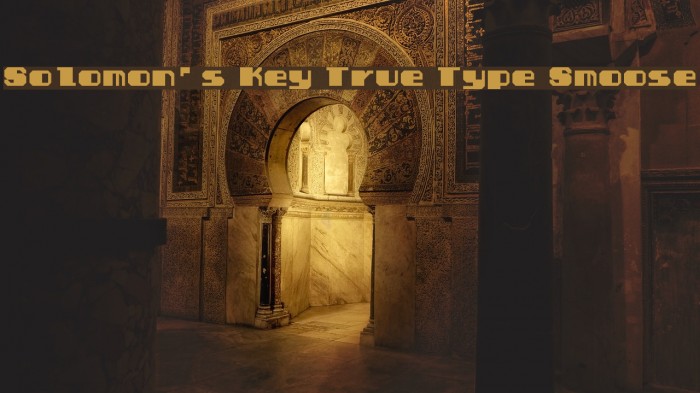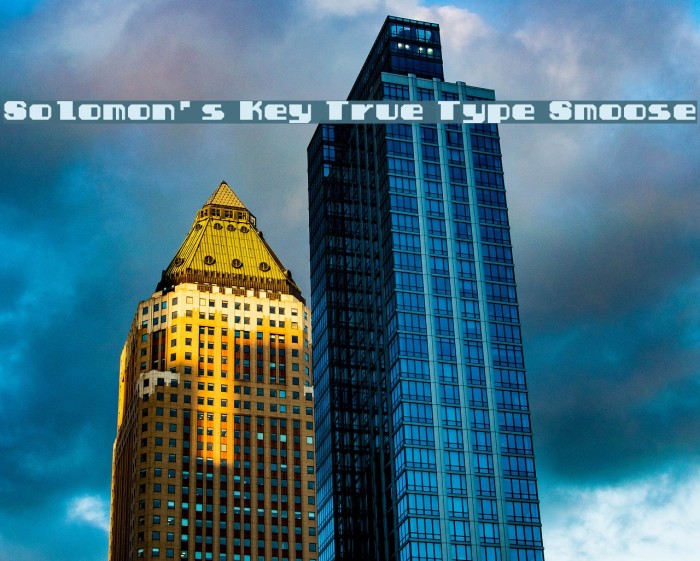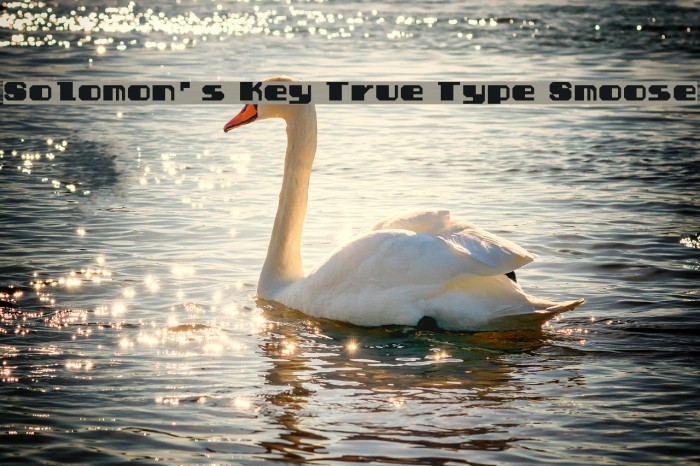
Solomon's Key True Type Smoose Font
This font features a bold, geometric design with a distinct blocky appearance. Each character is crafted with sharp angles and straight lines, giving it a futuristic and digital feel. The uppercase and lowercase letters maintain a consistent style, with the lowercase being slightly more compact. Numbers and special characters follow the same angular design, ensuring uniformity across all glyphs. The font's thick strokes and lack of curves make it highly legible and impactful, suitable for attention-grabbing displays.
A bold, geometric font with a futuristic, digital aesthetic.
- Proposed Projects: Ideal for video game titles, tech-themed posters, digital art projects, and branding for technology companies.